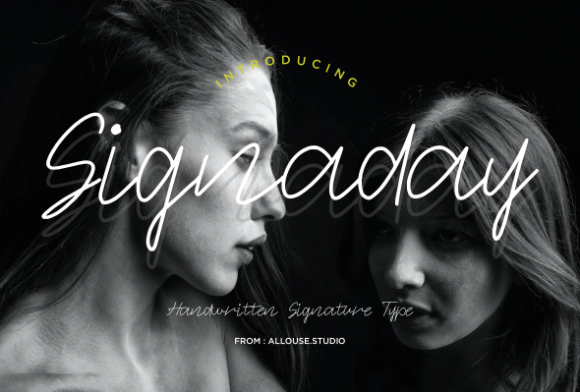
Unleash the power of expression with Signaday Font - an enchanting script font crafted to leave an unforgettable impression. Experience the fluidity of its delicate strokes, the grace of its thin lines, and the elegance of its smooth curves that seamlessly blend to create a captivating visual symphony.
Step into a world of creativity and versatility with Signaday, the font that seamlessly adapts to your every design desire. Whether you seek to enhance your branding, elevate your product packaging, create stunning invitations, or craft heartfelt quotes, Signaday stands as your trusted companion, ready to transform your visions into tangible masterpieces.
Elevate your Gmail signature to new heights of sophistication with Signaday, the font designed to make a statement. Effortlessly add a touch of personal flair to your emails, capturing the attention of recipients with its unique charm. Say goodbye to mundane signatures and embrace a new era of personalized communication.
Let Signaday be your creative compass as you navigate the world of design. Whether crafting t-shirts, labels, posters, or logos, Signaday's versatility knows no bounds. Its ability to effortlessly blend with various design elements ensures that your creations will shine with a distinct and captivating aura.
Dive into the world of allure and sophistication with Signaday, the font that promises to captivate and inspire. Its timeless beauty and captivating presence will leave an indelible mark on your designs, making them stand out from the crowd. Discover the endless possibilities that await with Signaday, the font that ignites creativity and fuels your design journey.